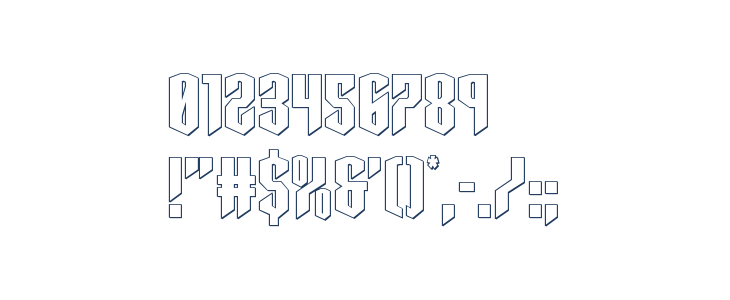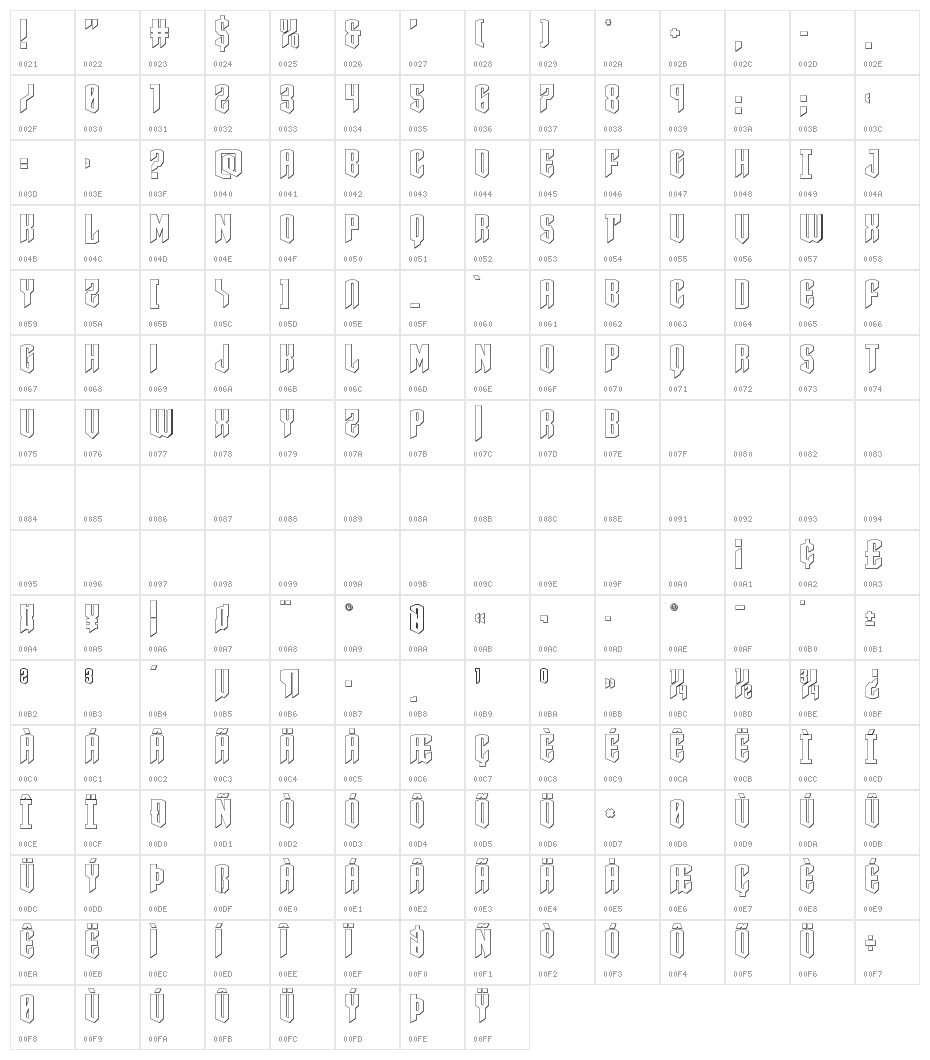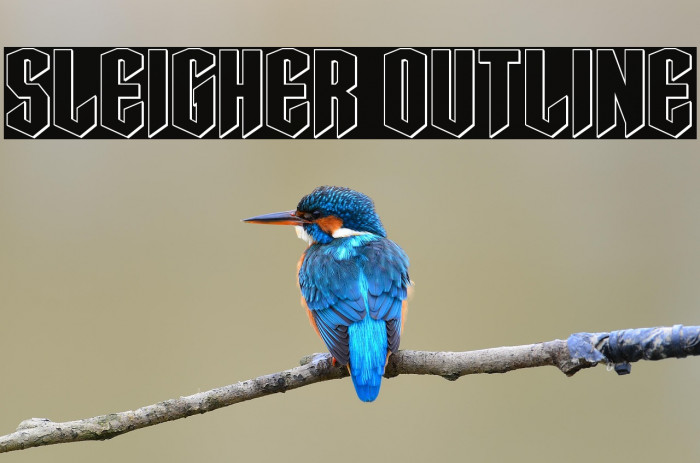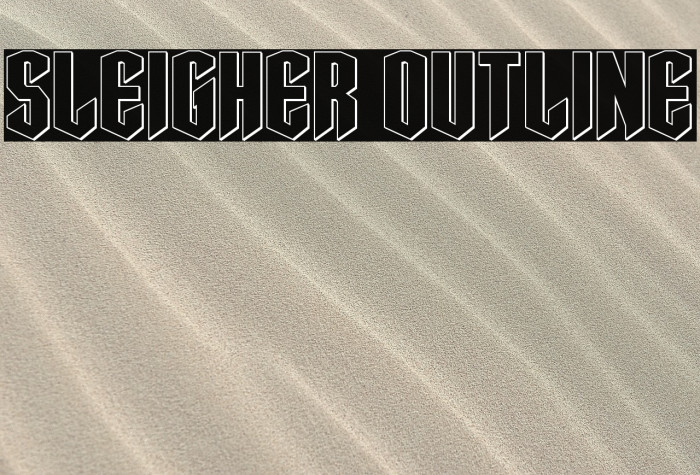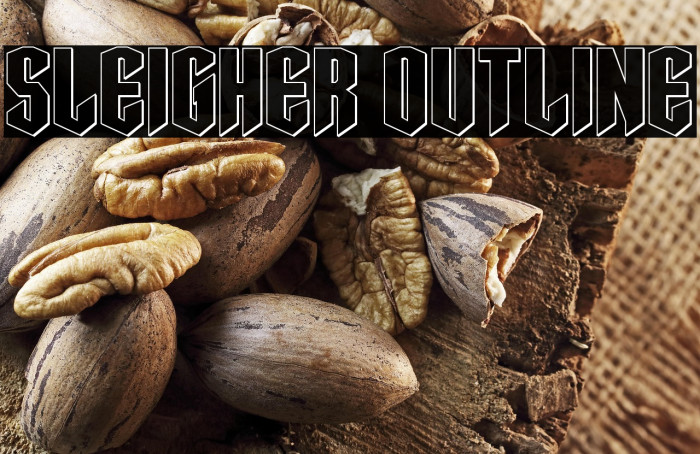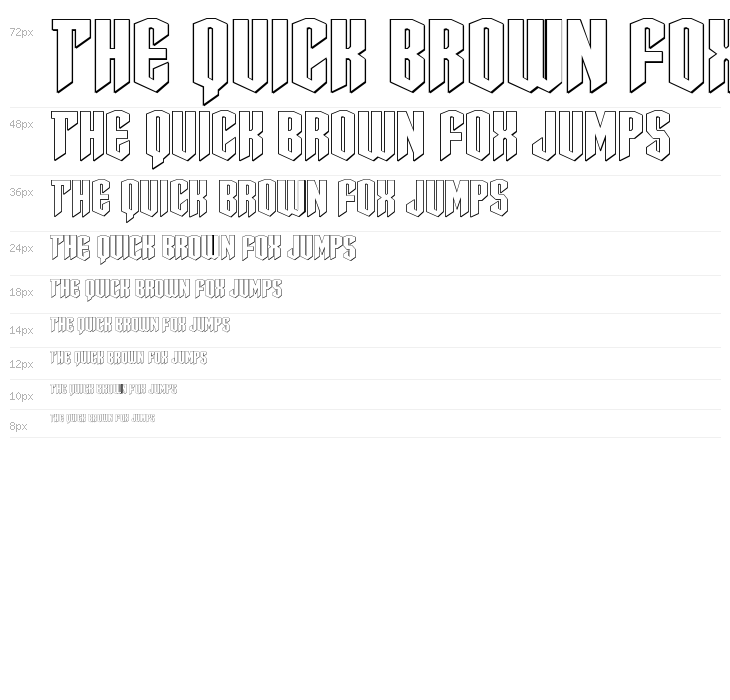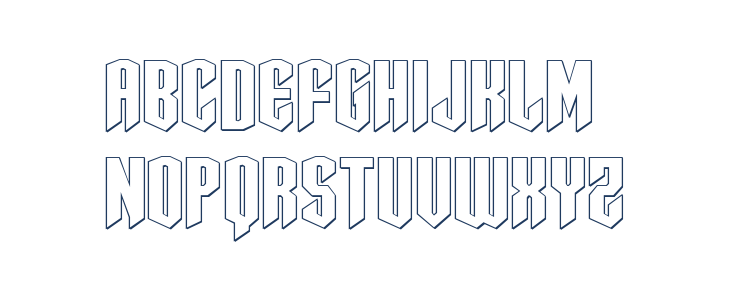
Sleigher Outline Font
This font features a bold, outlined style with a distinct three-dimensional appearance. The characters are angular and geometric, giving them a strong, impactful presence. The uppercase and lowercase letters maintain a consistent height, contributing to a uniform look. The numbers and special characters are designed with the same bold outline, ensuring cohesion across all elements. This font's unique style makes it ideal for attention-grabbing designs, where a modern and edgy aesthetic is desired. The outlined nature of the characters allows for creative use of color and background, enhancing its versatility in various design contexts.
Proposed ProjectsIdeal for posters, album covers, video game titles, and branding projects that require a modern and edgy look.